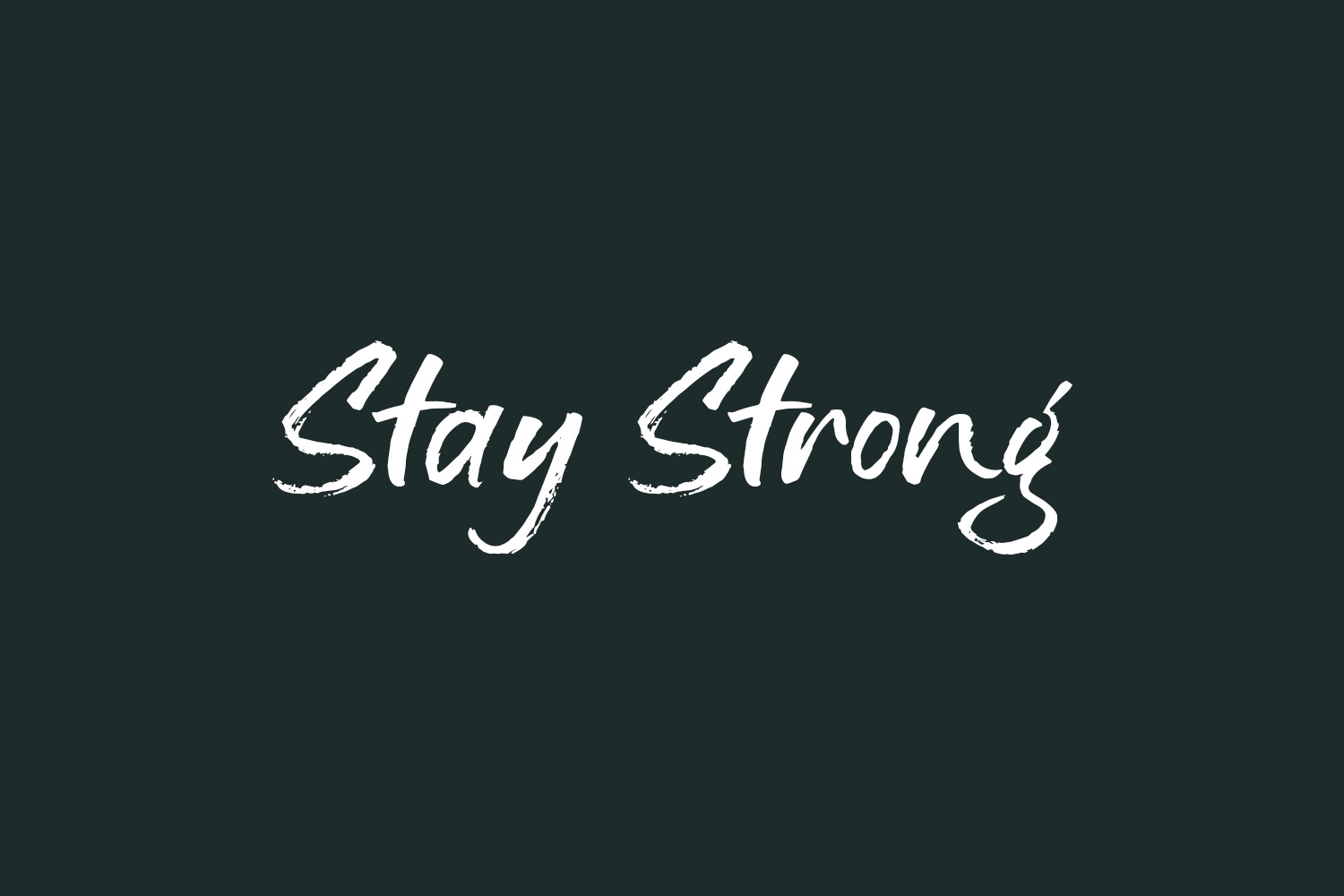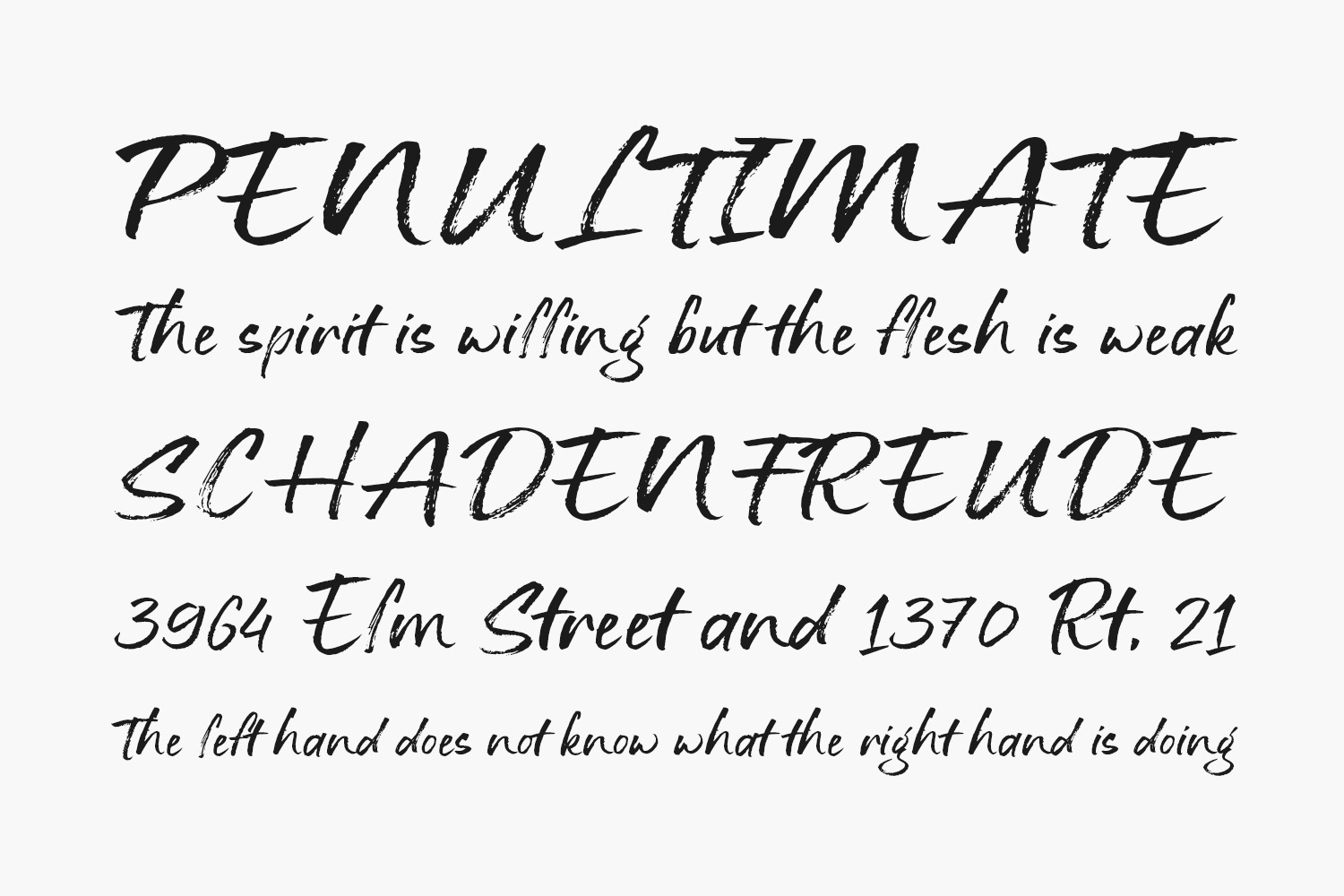
Stay Strong Free Font is a cool, brushed handwritten font. Fall in love with its incredibly versatile style and use it to create spectacular designs. Stay Strong Free Font was designed by Letterhend Studio and is free for personal use only. Please purchase the full version for commercial use.